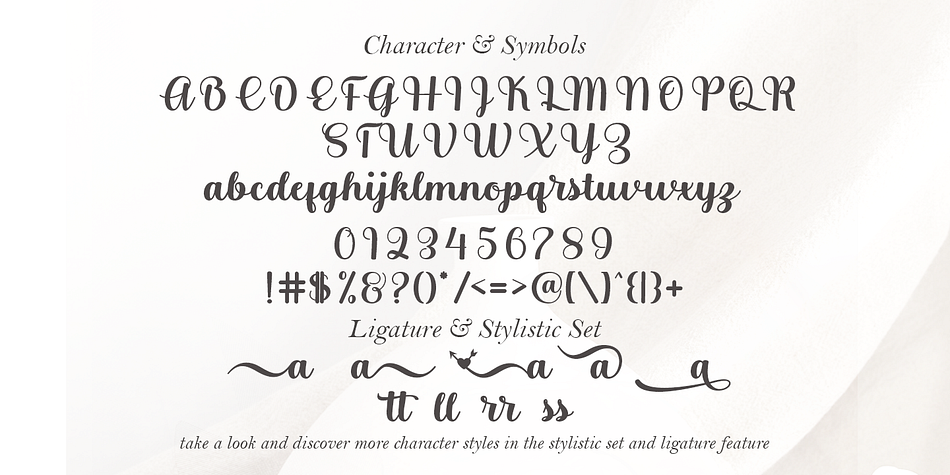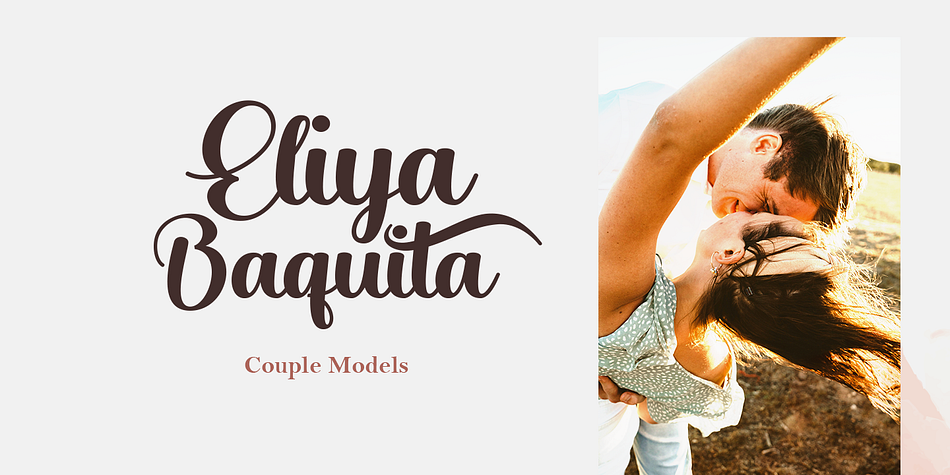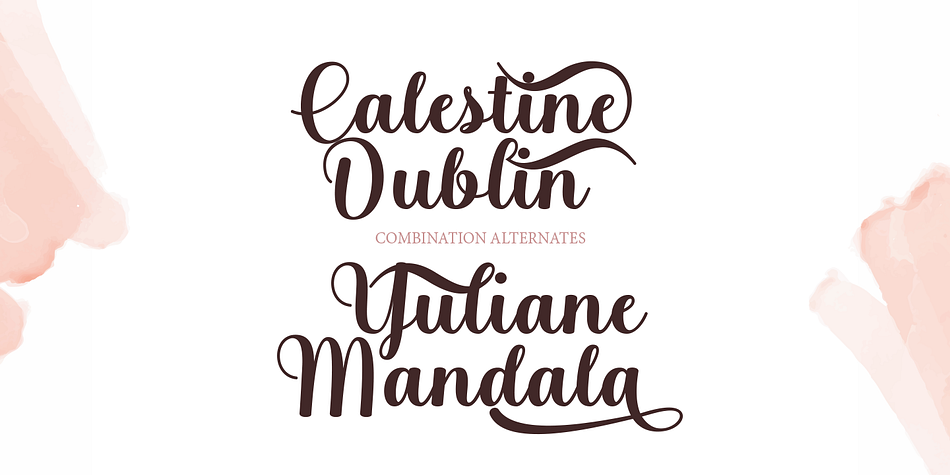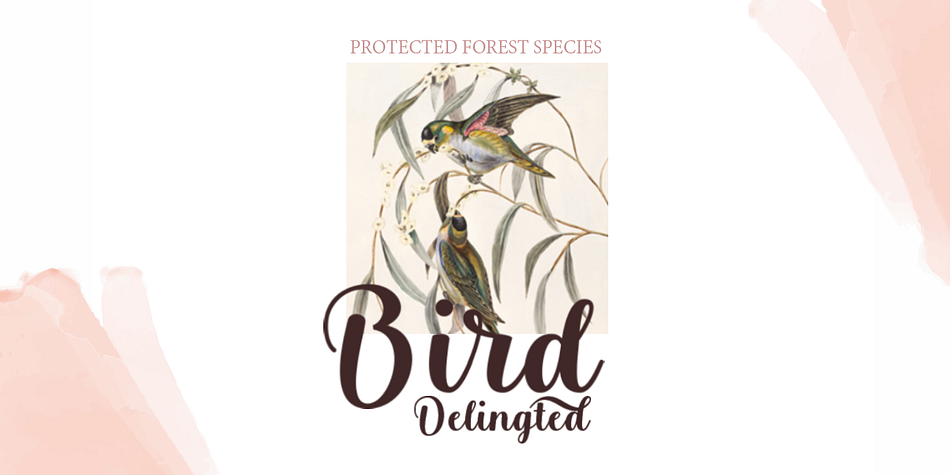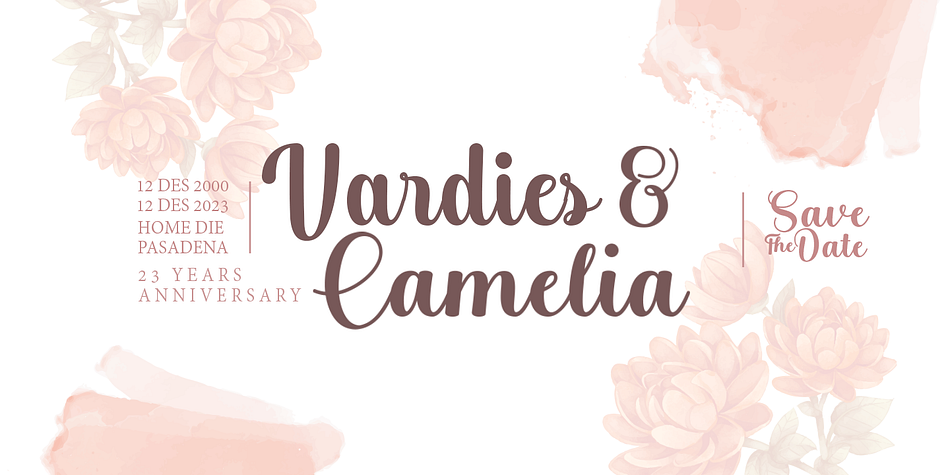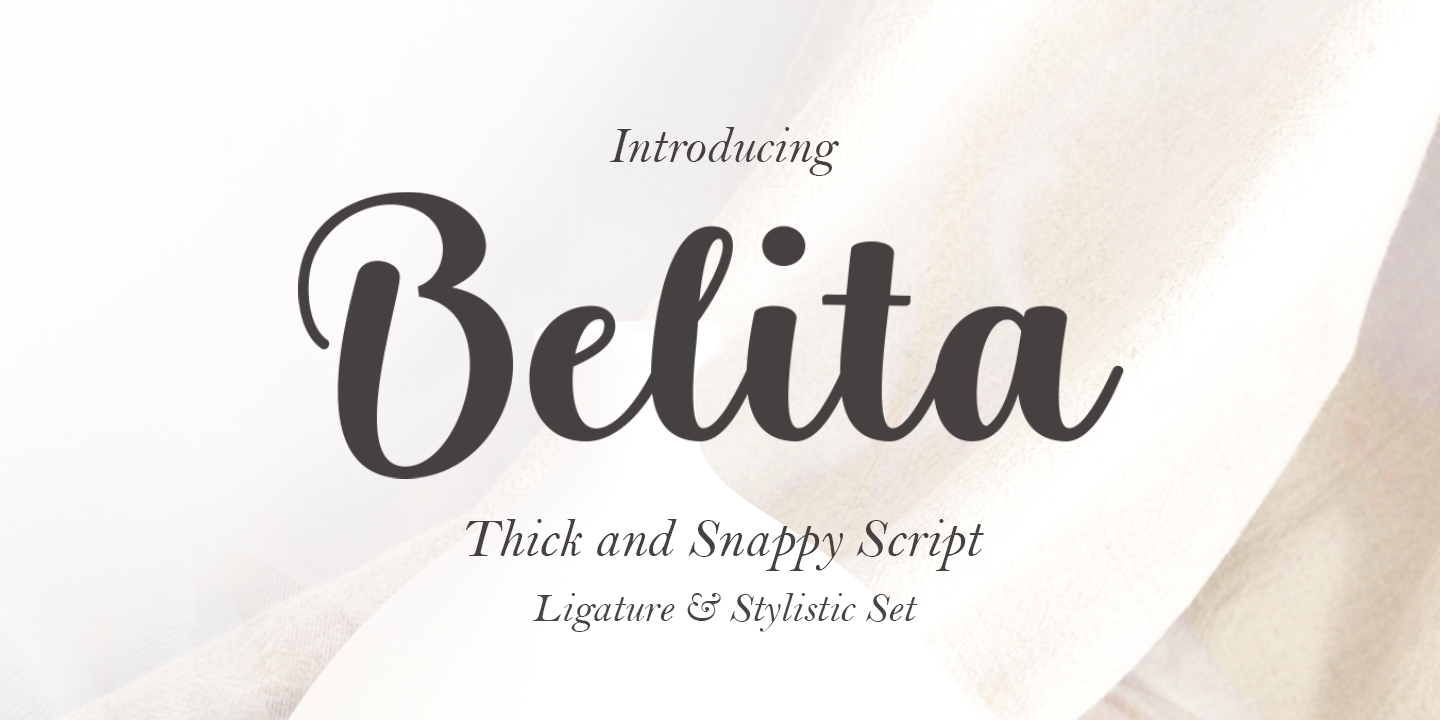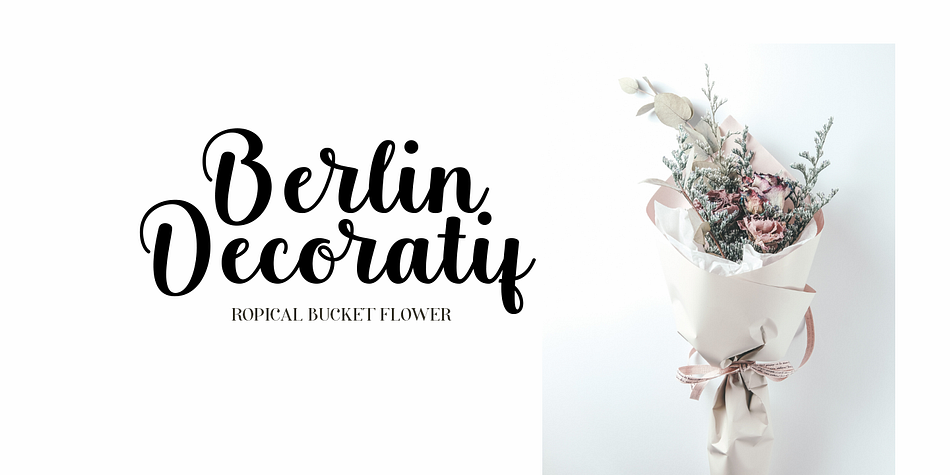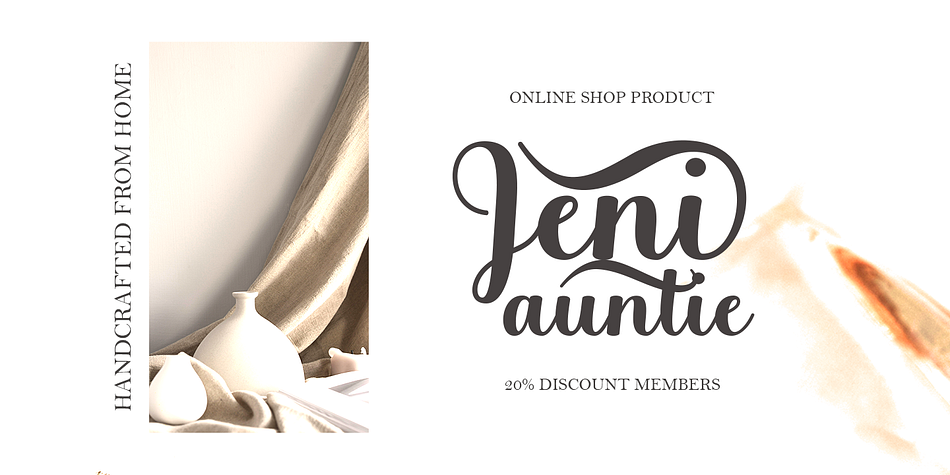
Belita
Belita is a modern calligraphy font family published by Gatype.
Belita Modern & Feminine Script Fonts are suitable for branding, invitations, stationery, wedding designs, social media posts, advertising, product packaging, product design, labels, photography, watermarks, special events and many more.